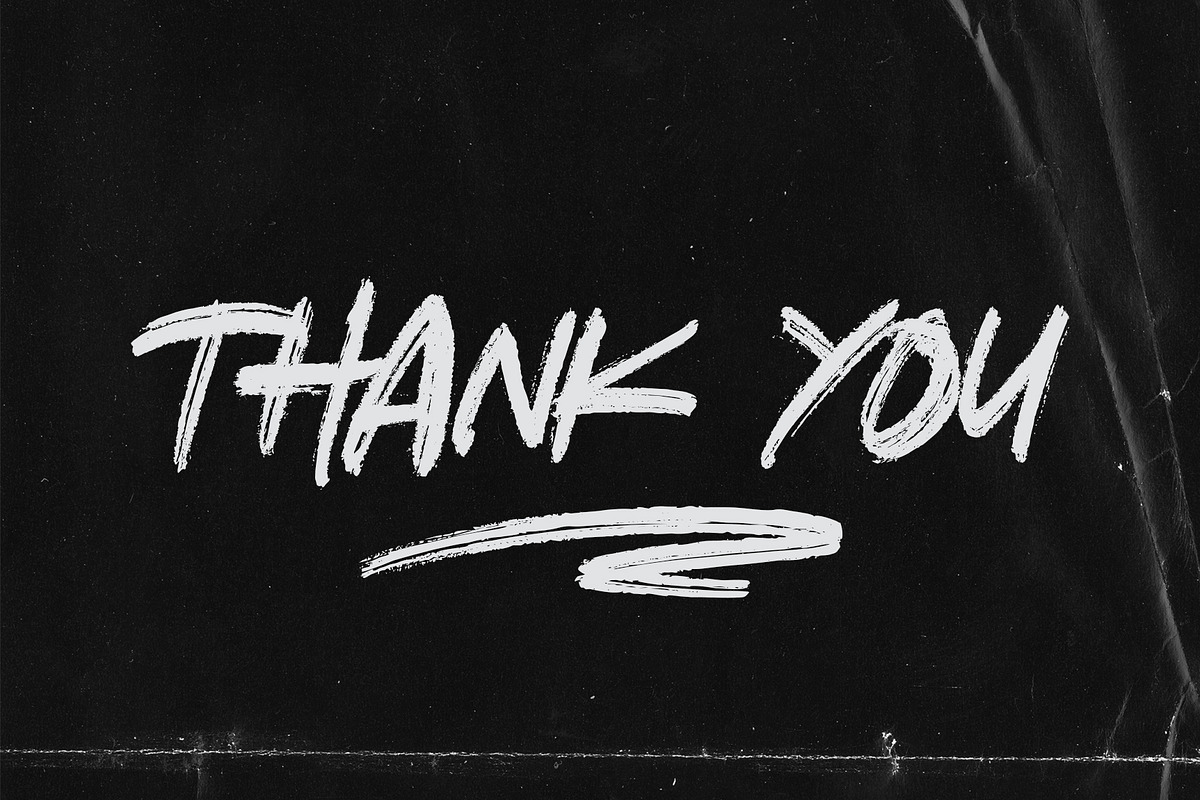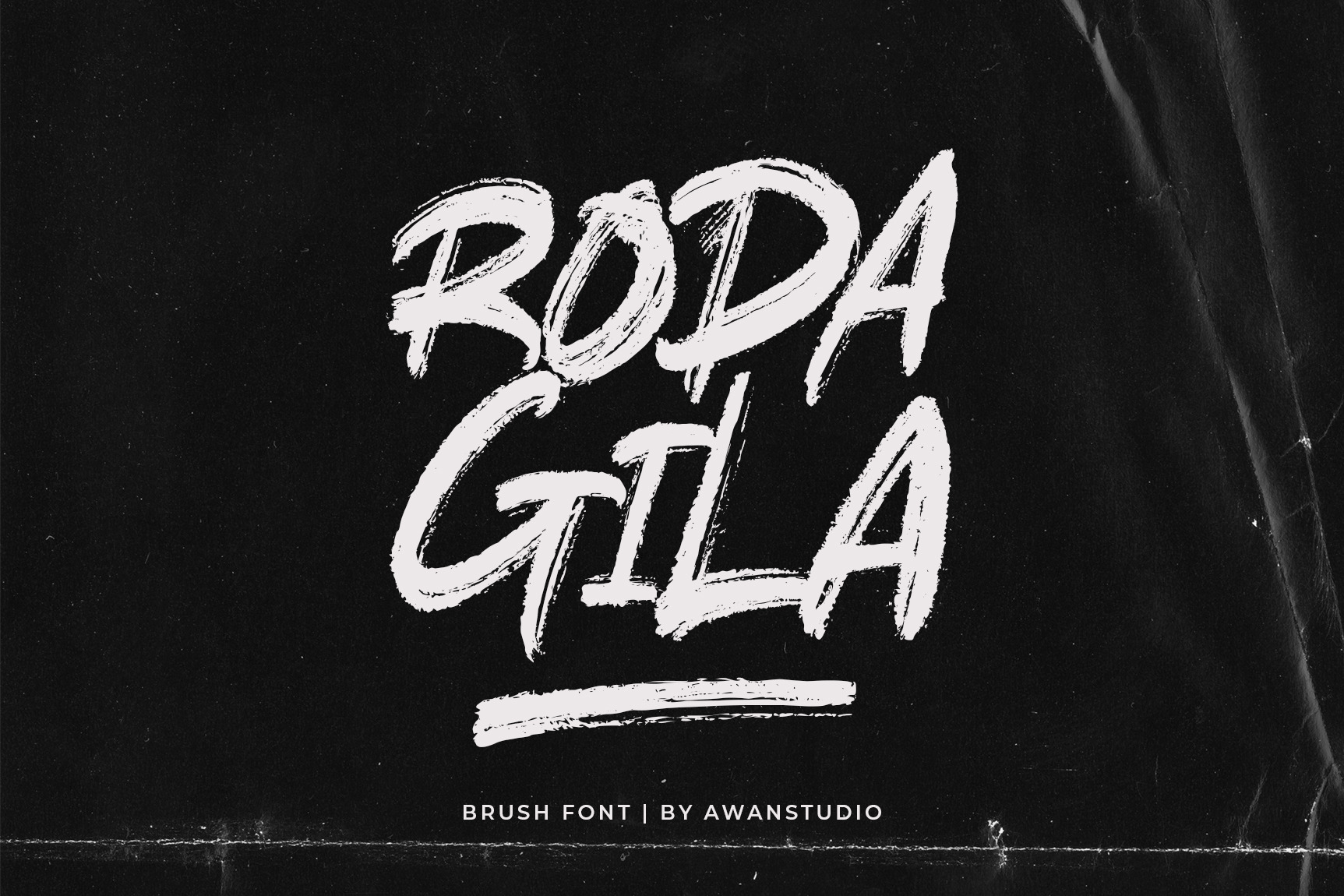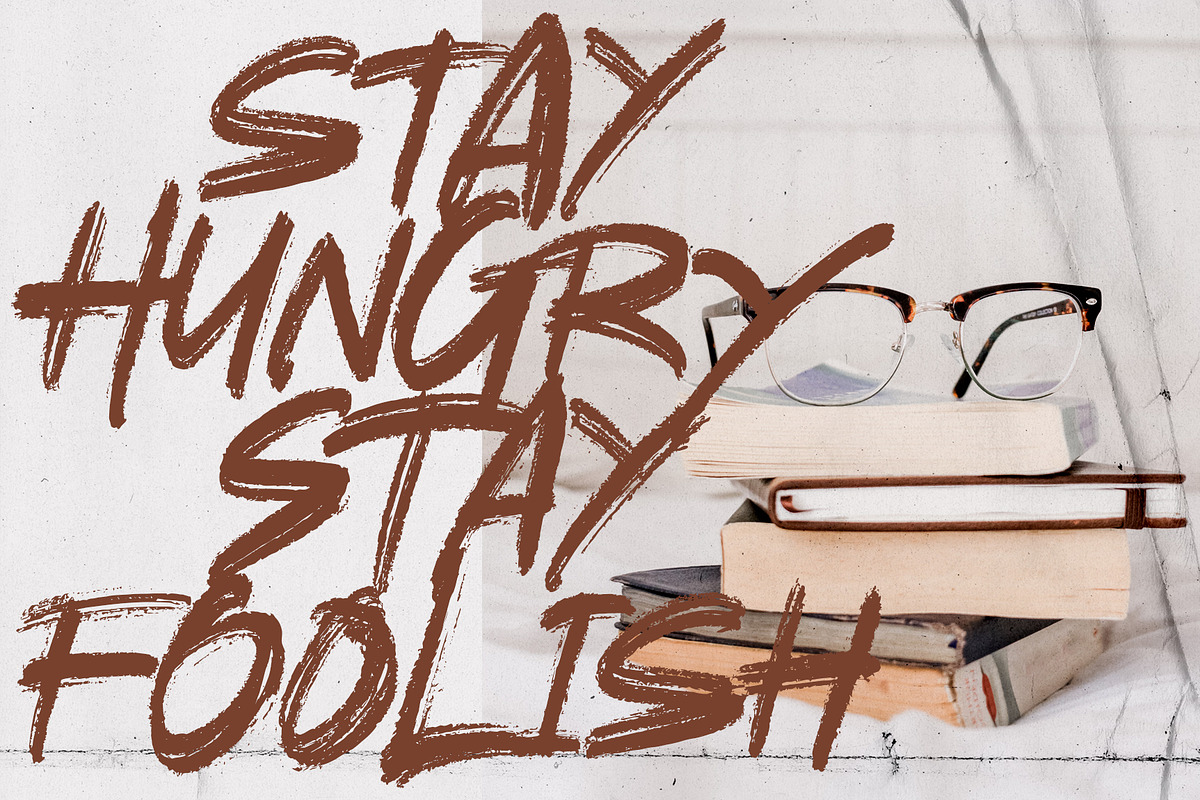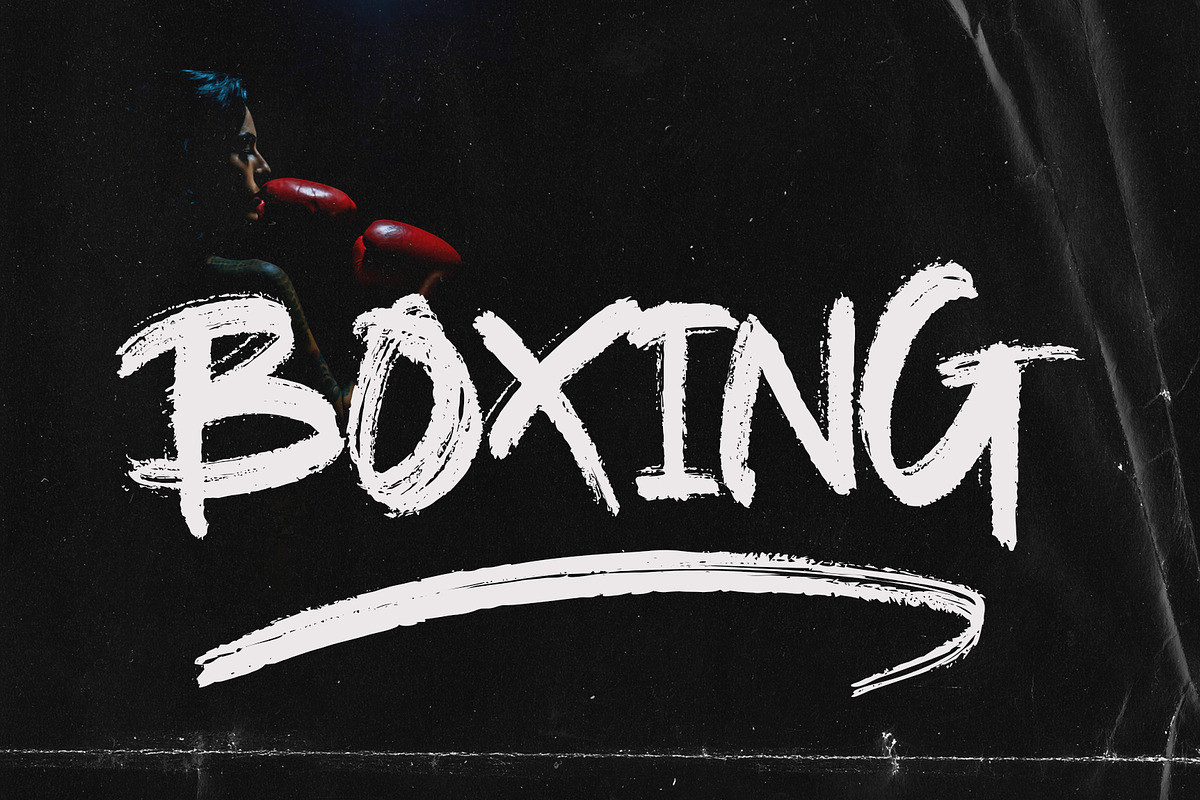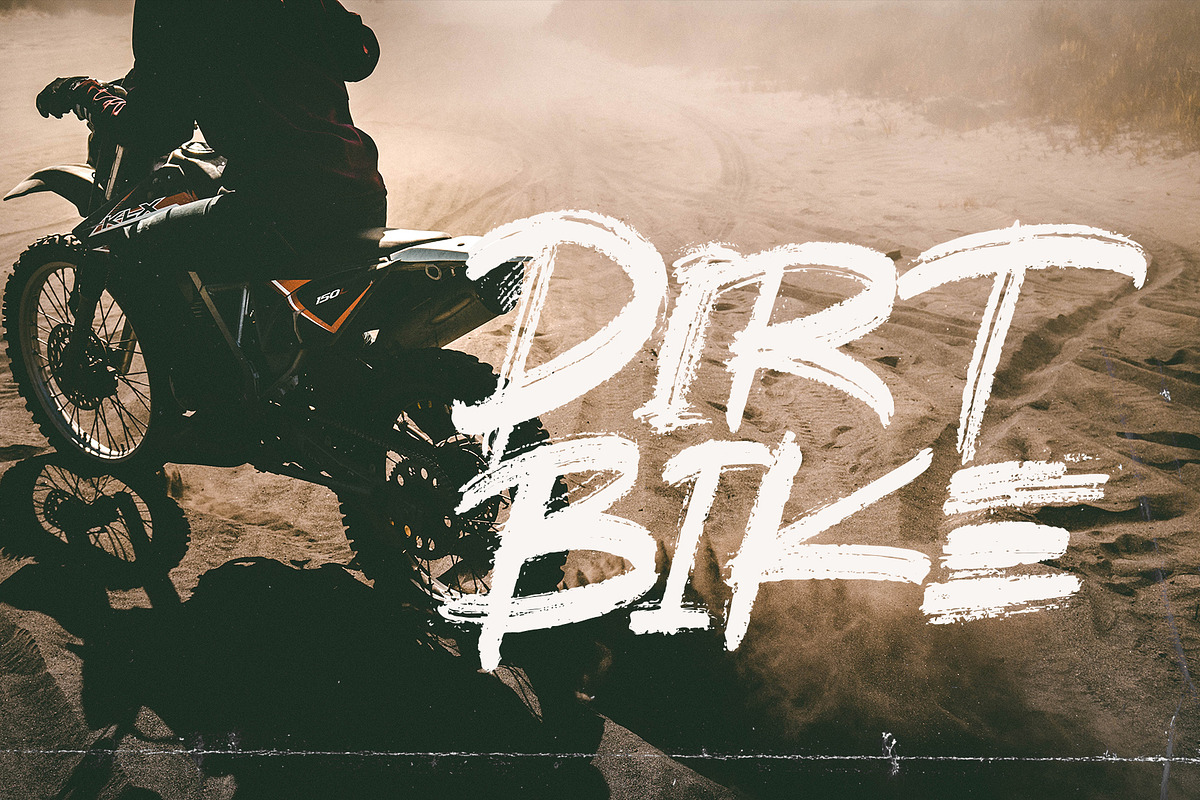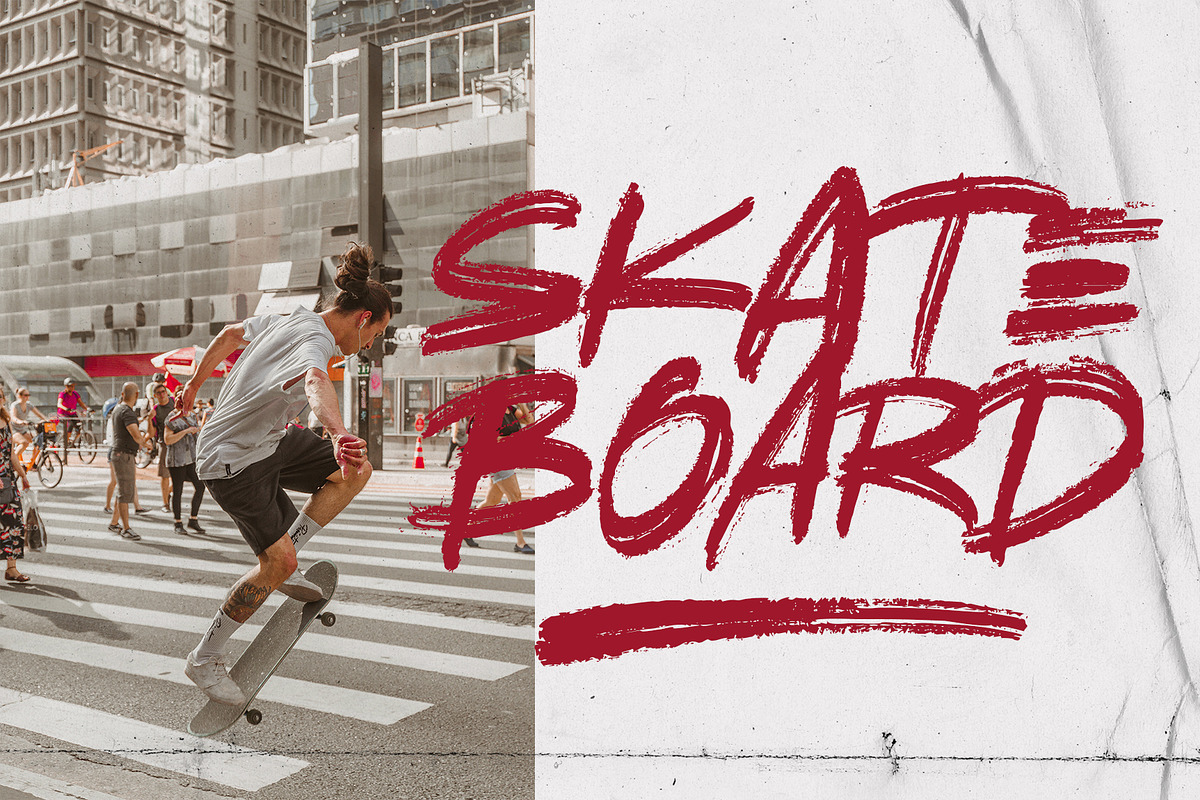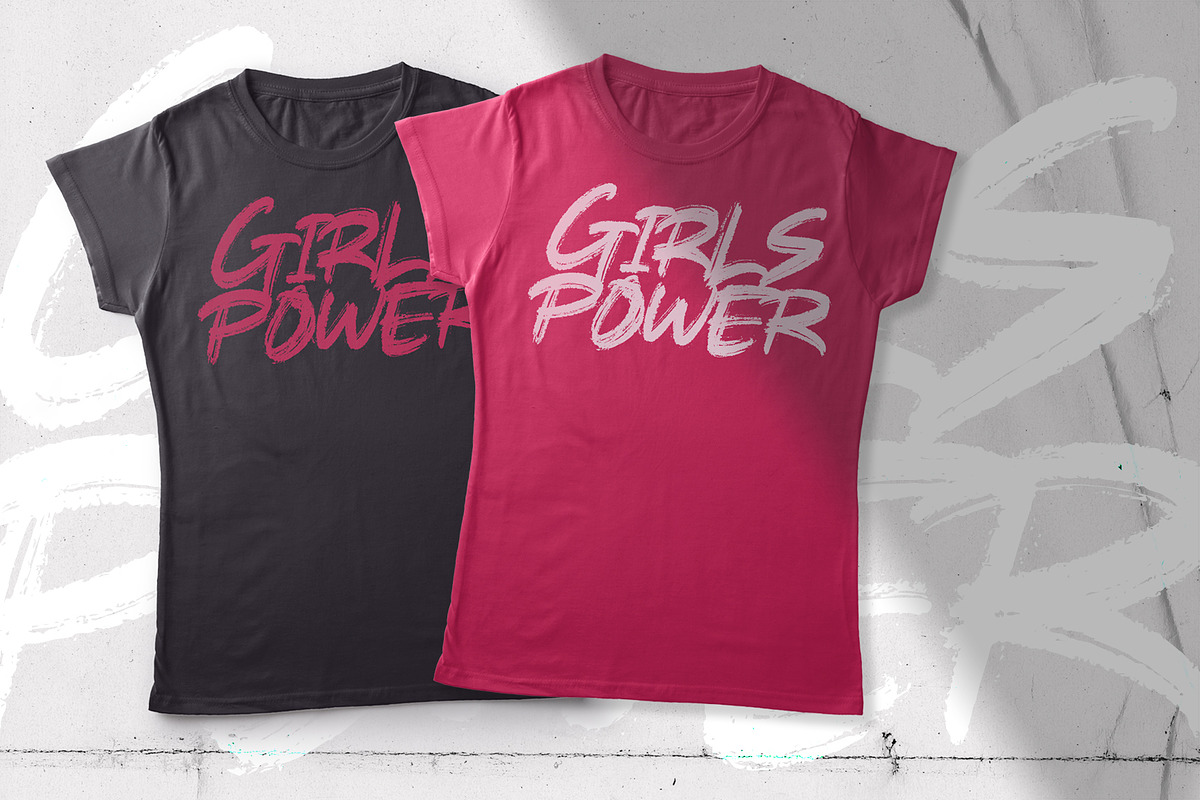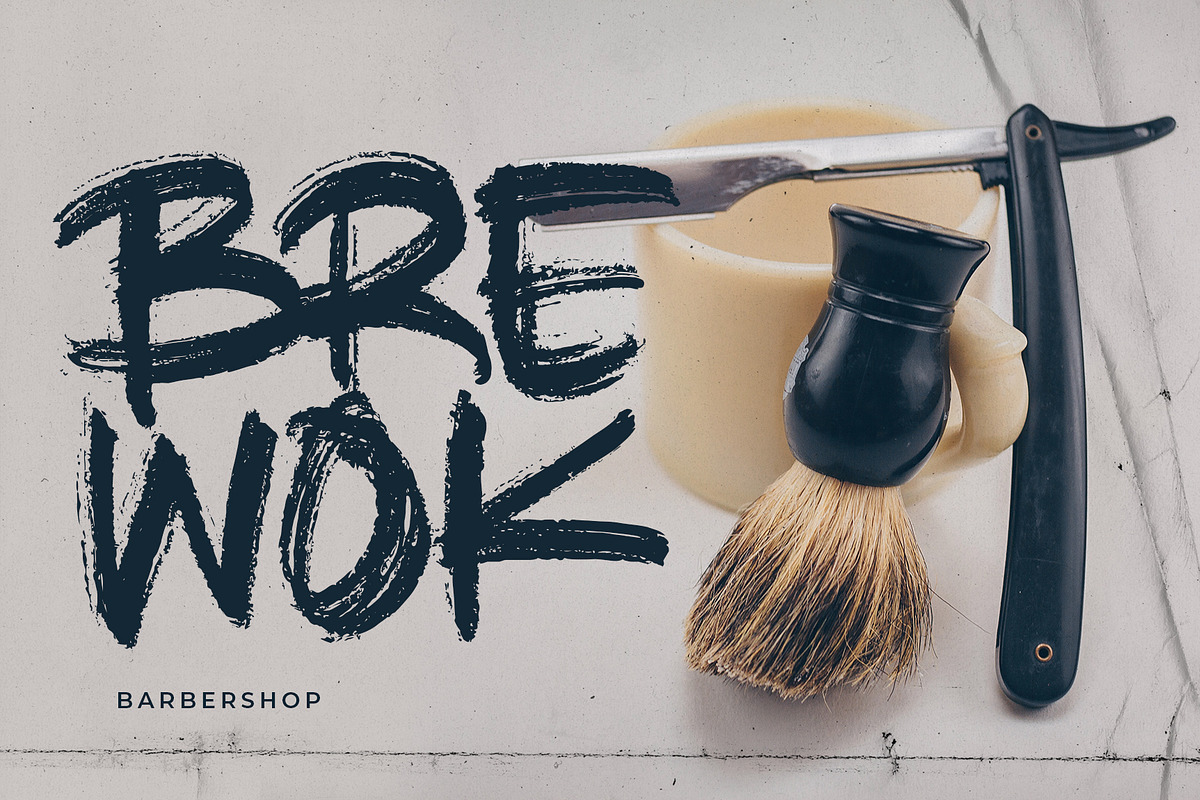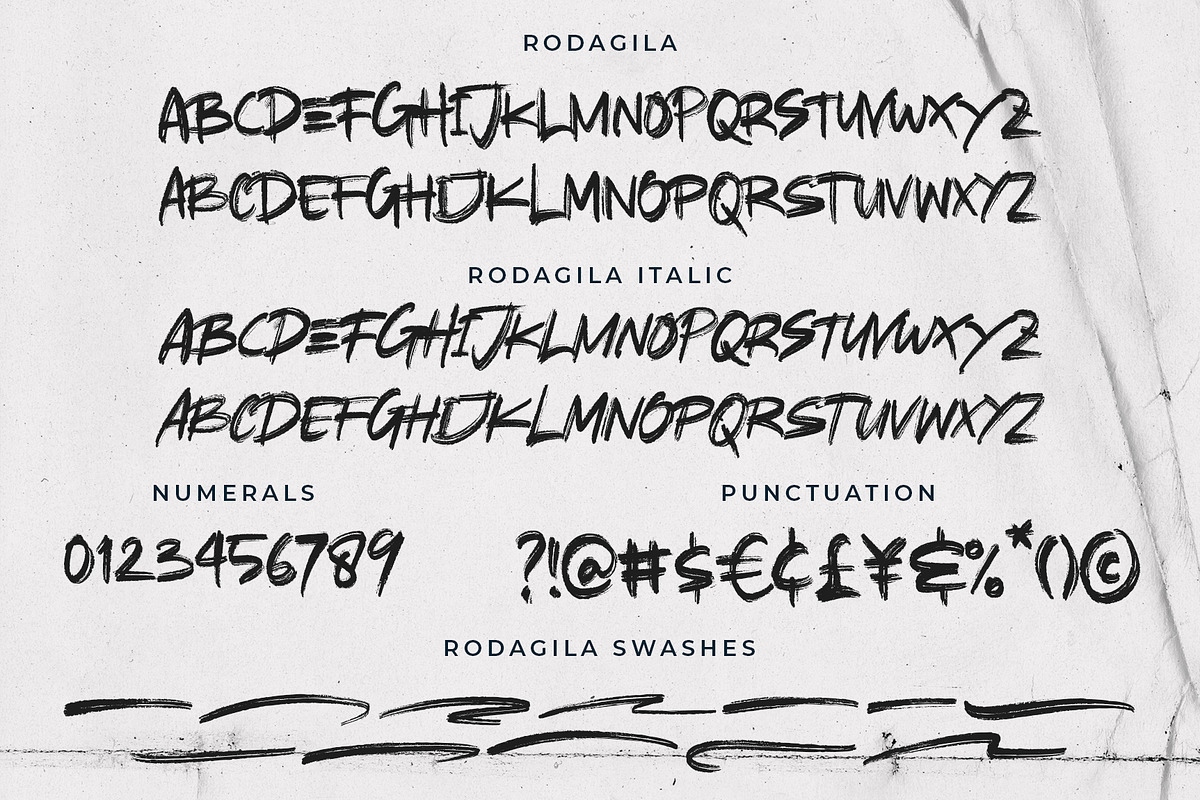
RODAGILA | Brush Font
Rodagila is a strong and powerful display font with a contemporary feel. It will easily turn any design project into a stand out!
- RODAGILA Complete set of lowercase a-z character as alternate capital brush. You can easily combine upper and lowercase in words to get a better look or best text layout.
- RODAGILA Italic
- RODAGILA Swashes 12 set of swashes, A-L character